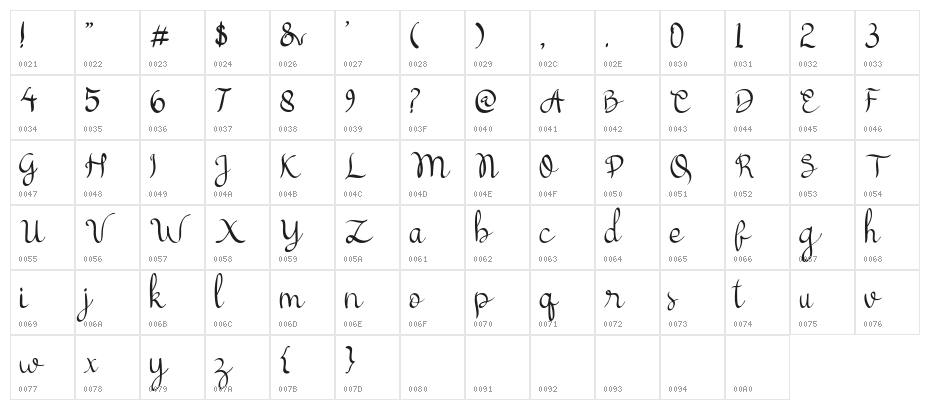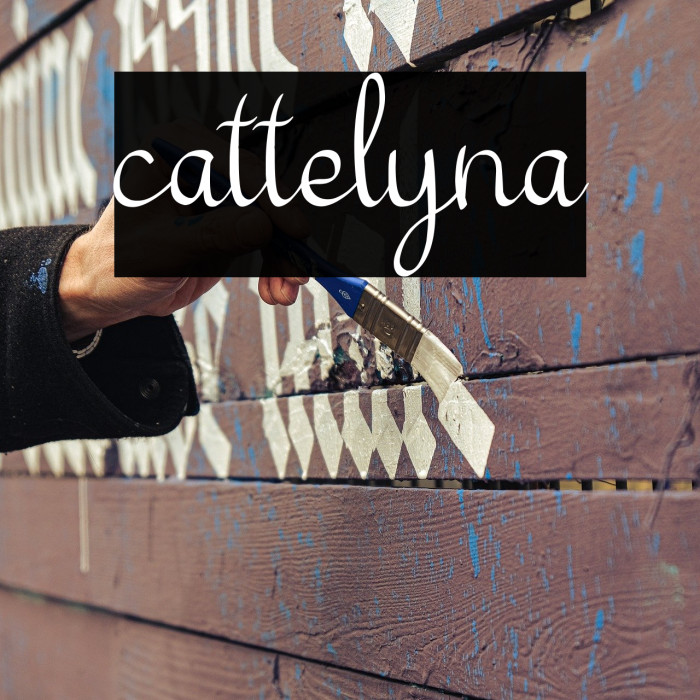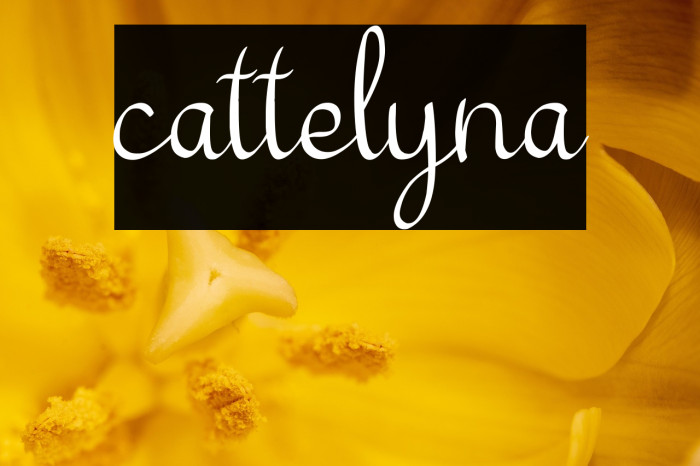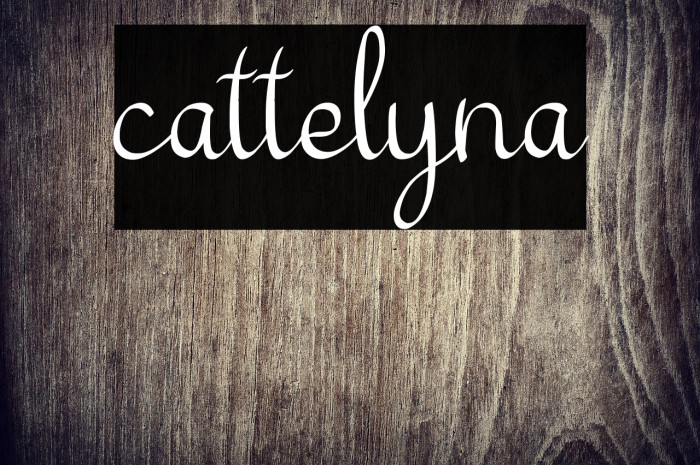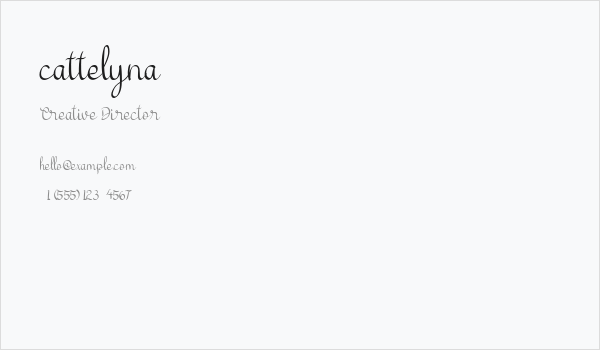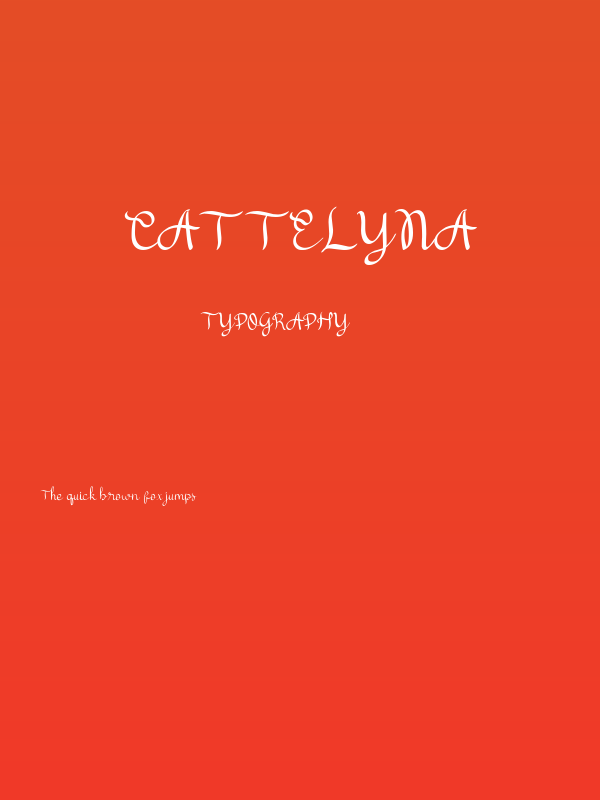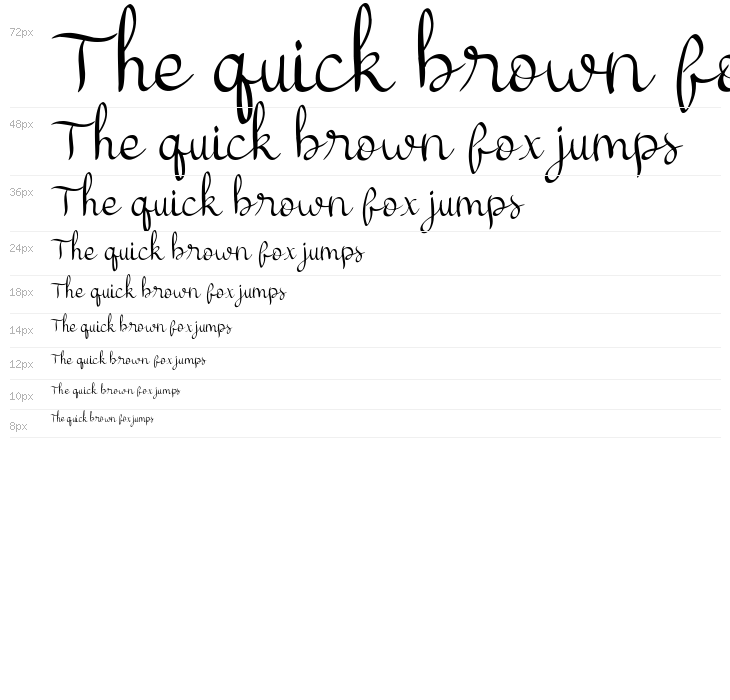
cattelyna Font
cattelyna Description
This elegant script font features flowing, cursive letters with a graceful and artistic flair. The uppercase characters are bold and sweeping, with intricate loops and curves that give a sense of movement and fluidity. The lowercase letters maintain this fluidity, with a slightly more restrained design that complements the uppercase set. The numerals are distinct and easy to read, while the special characters add a touch of whimsy with their unique styling. This font's overall appearance is both sophisticated and playful, making it suitable for a variety of creative projects.
| Use Case | Logos, Invitations, Decorative text |
| Proposed Projects | Ideal for wedding invitations, greeting cards, branding, and elegant packaging designs. |